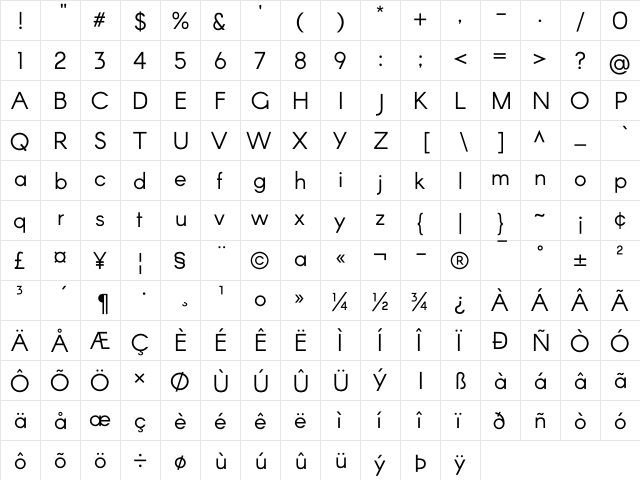
Arcon Regular
| Foundry | martin zarth - visuelle & digitale kommunikation |
| Designer | M. Zarth |
Design Context for Arcon Typeface
Arcon takes a measured approach to typography — its balanced proportions and neutral character make it a reliable workhorse for both digital and print work.